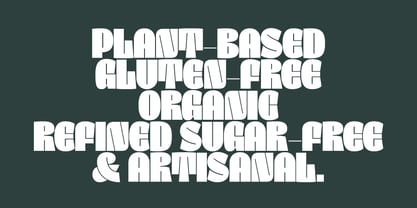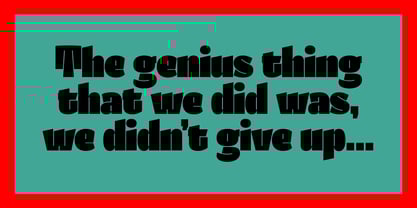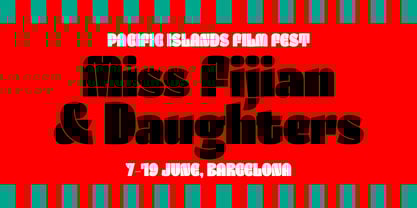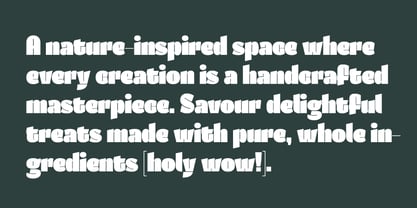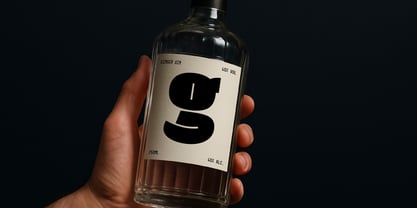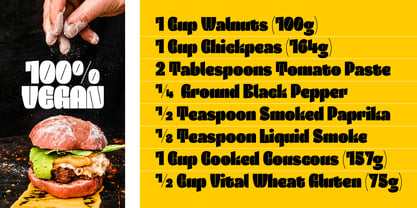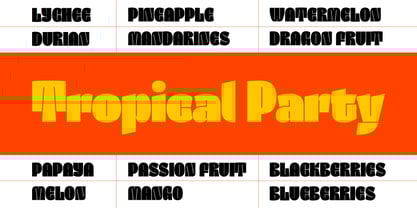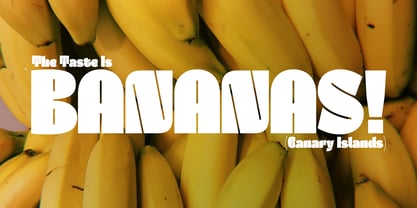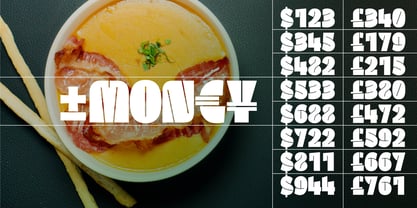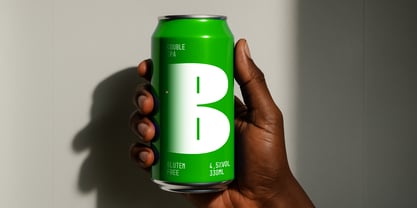
Kanat Latin
by Maria Montes
In 2024, the Arabic type designer Lara Captan challenged Maria Montes to create a Latin companion for her existing Arabic display font called Kanat — the Turkish word for “wing.” Captan’s beautiful typeface is a detached stencil design, originally created for letterpress, which carries architectural playfulness and delivers a warm kind of boldness to the reader.
Based on the description above— and challenged by the question: How can I create a Latin companion for an Arabic font I cannot read or write? — Montes spent many hours observing and analysing Kanat Arabic, its personality and DNA, followed by many more hours of consulting with Lara Captan. The result is a Latin interpretation that carries a bold attitude and playful spirit.
Kanat Latin is best used at 48pt and above. It’s designed to highlight words with flair, and finds its sweet spot in architectural, food, music, fashion, and packaging contexts. The font supports 269 languages and covers Basic Latin, Latin-1 Supplement, Latin-2 Central European and Latin Plus.
About Maria Montes
Maria Montes is an independent lettering designer specialised in branding assets, typography and calligraphy education.Montes’ creative practice is set by the principals of never stop learning, sharing knowledge and create emotion through her work. Her multidisciplinary practice expands across brand identity, packaging illustration, custom lettering, editorial, fashion, art and culture. She has been teaching calligraphy independently since 2014. Maria studied a Postgraduate Course in Advanced Typography in Barcelona and a Condensed Program in Typeface Design at Type@Cooper in NYC. In 2018 she released her first display chromatic font family called Green Fairy.